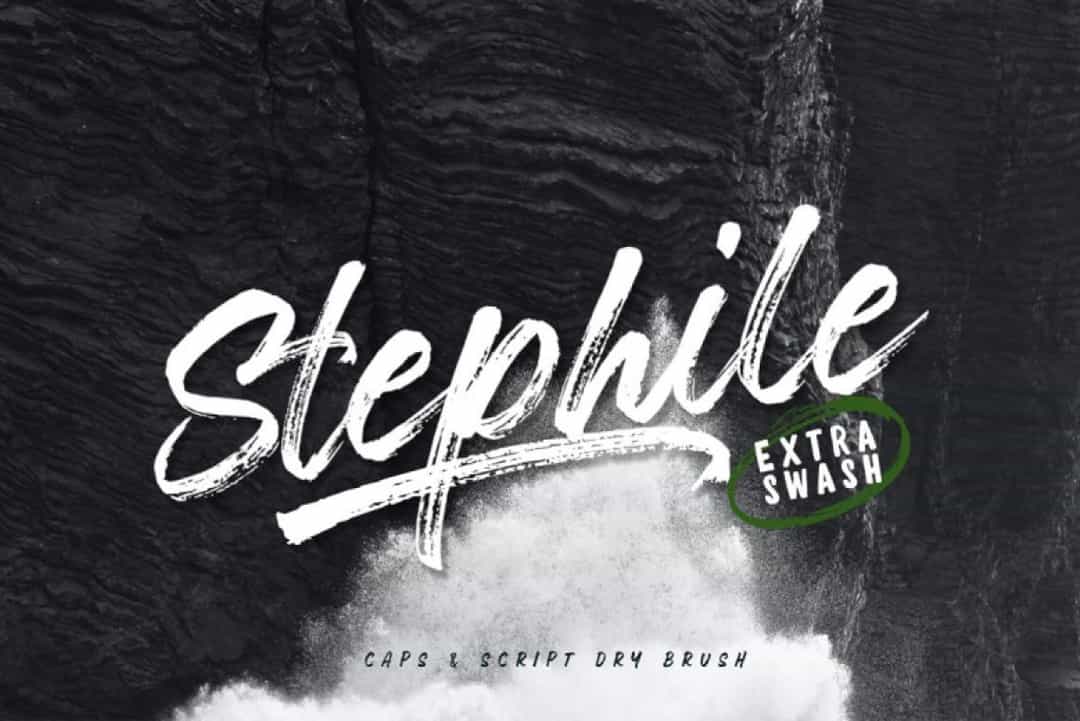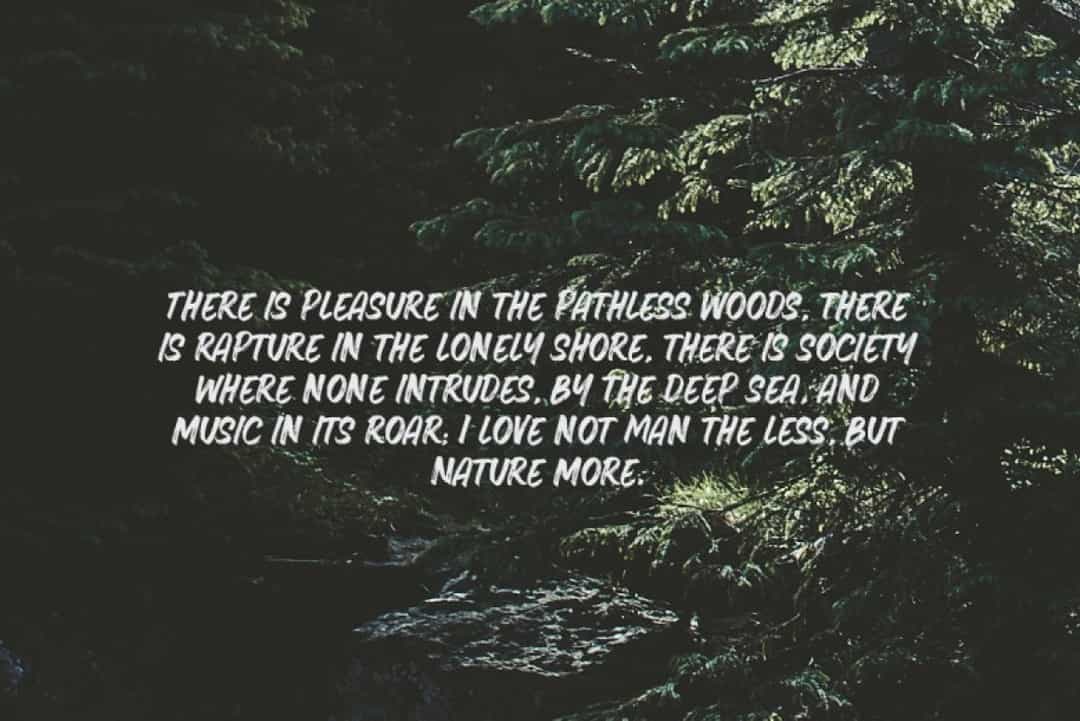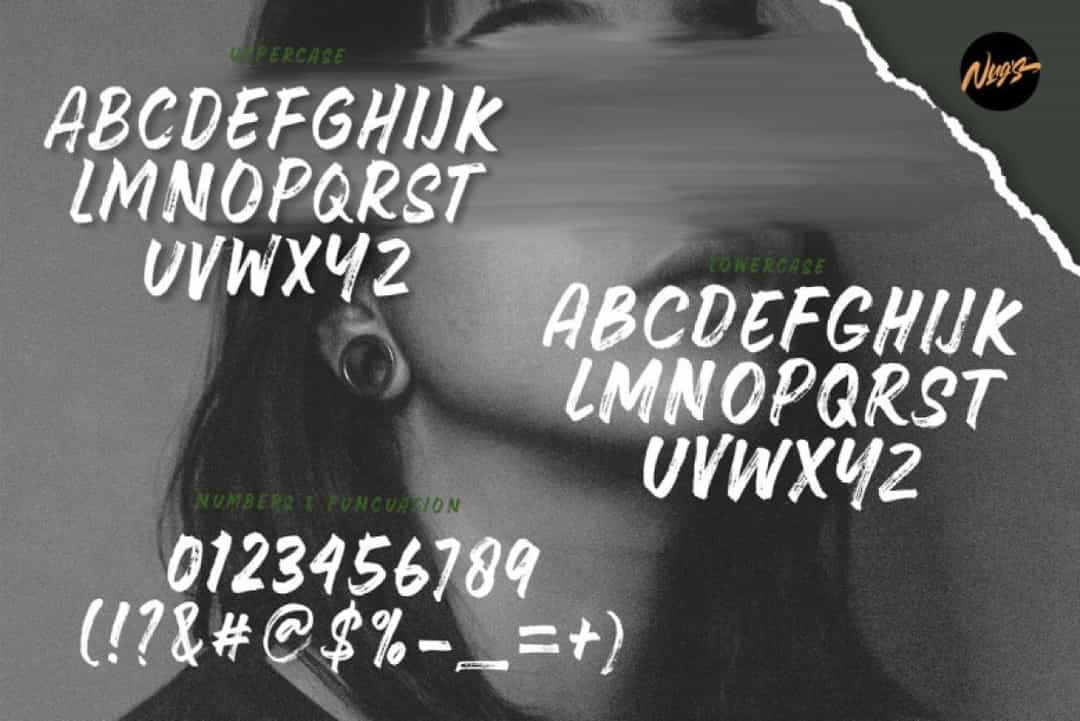
Stephile is a casual handwriting script with an appealing flow and feel, offering various alternative scripts to mimic its signature look of handwriting. With four lower case sets as well as two upper case sets available, Stephile makes an ideal font choice for designing projects such as posters, logos, branding quotes, stunning wedding invitations stationary art captivating posts on social media adorable greeting cards or any other design projects with natural feel and appeal. It is truly one-of-a-kind! Its natural appeal adds character and warmth.